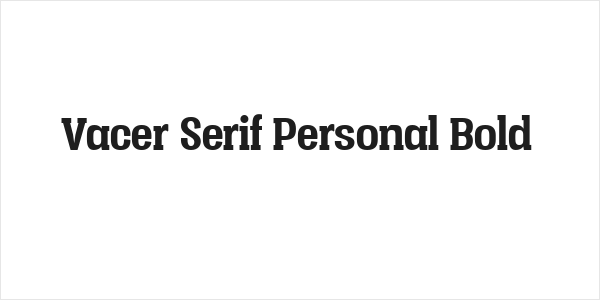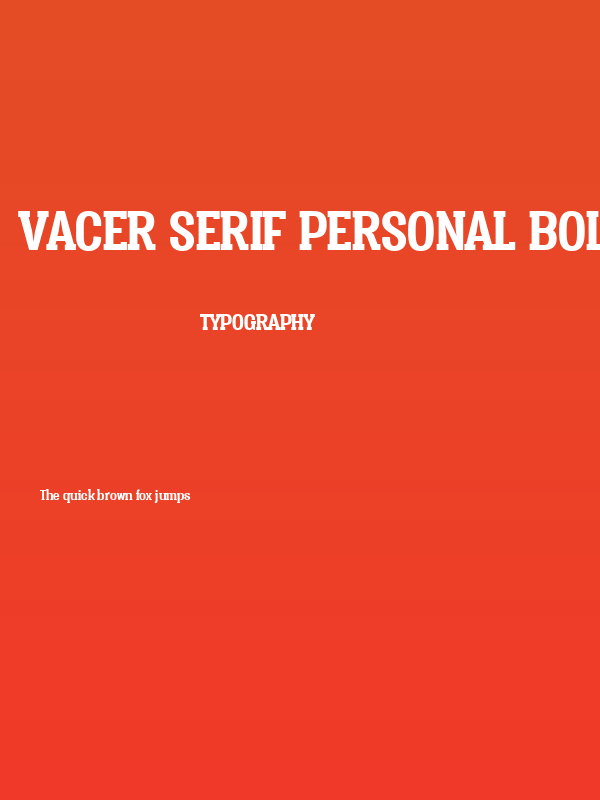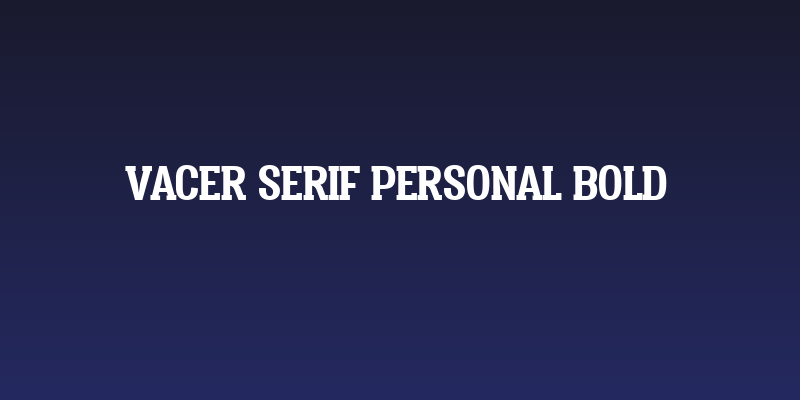
Vacer Serif Personal Bold Font
Vacer Serif Personal Bold Description
This font features a bold and robust serif style, characterized by strong vertical lines and thick, block-like serifs. The uppercase letters are tall and commanding, while the lowercase letters maintain a consistent weight, offering a harmonious balance. The numerals are clear and easily distinguishable, making them suitable for various applications. Special characters are well-defined, adding versatility to the font's usage. The overall design exudes a sense of authority and tradition, making it ideal for projects that require a classic yet impactful appearance.
| Use Case | Headlines, Logos, Editorial Design |
| Proposed Projects | Ideal for headlines, editorial design, branding, and signage where a classic and impactful look is desired. |